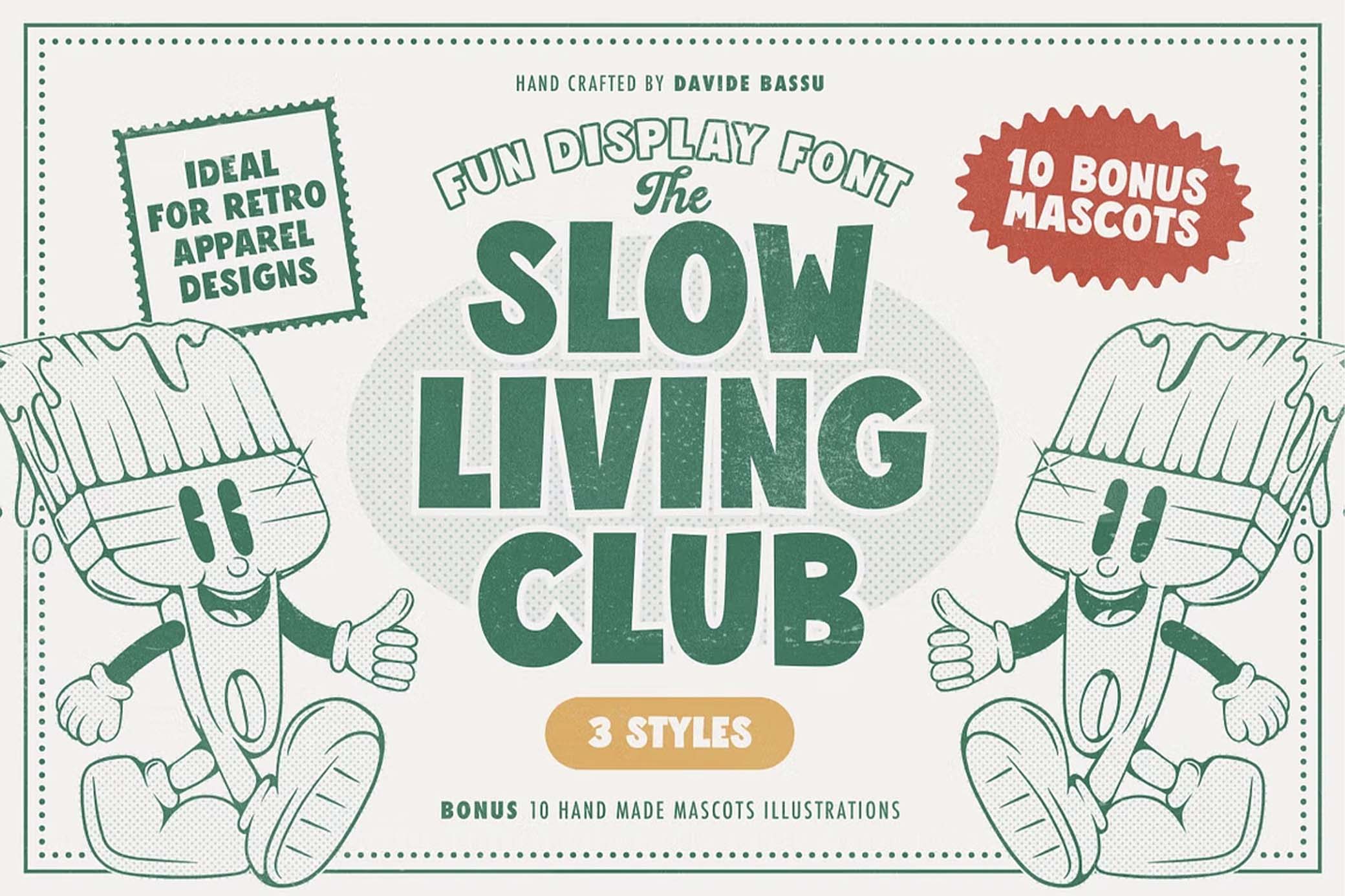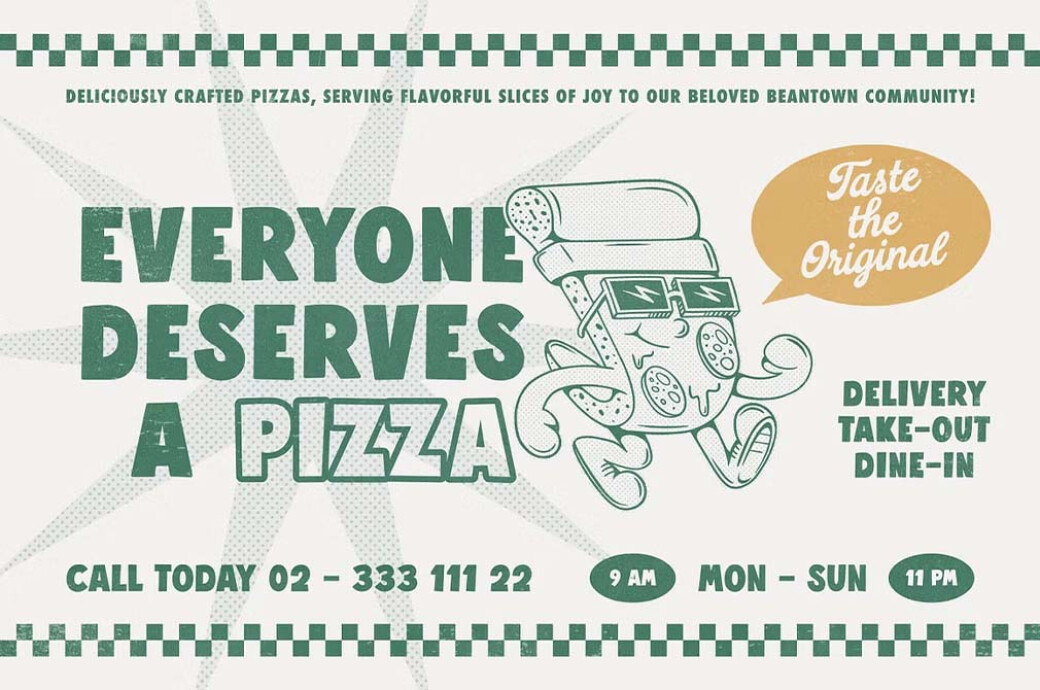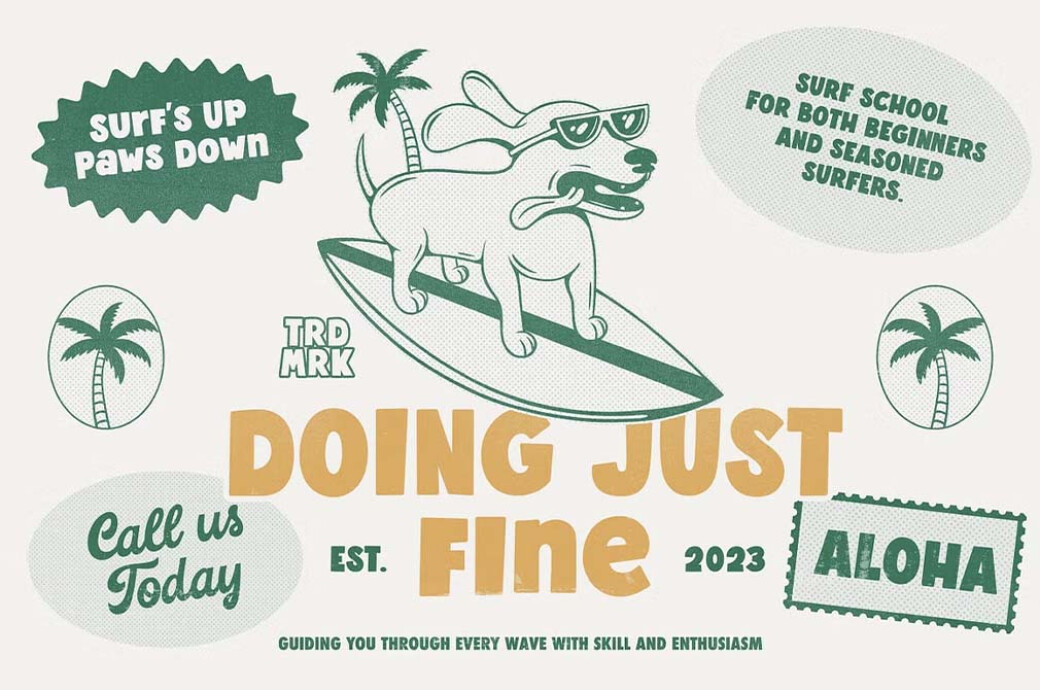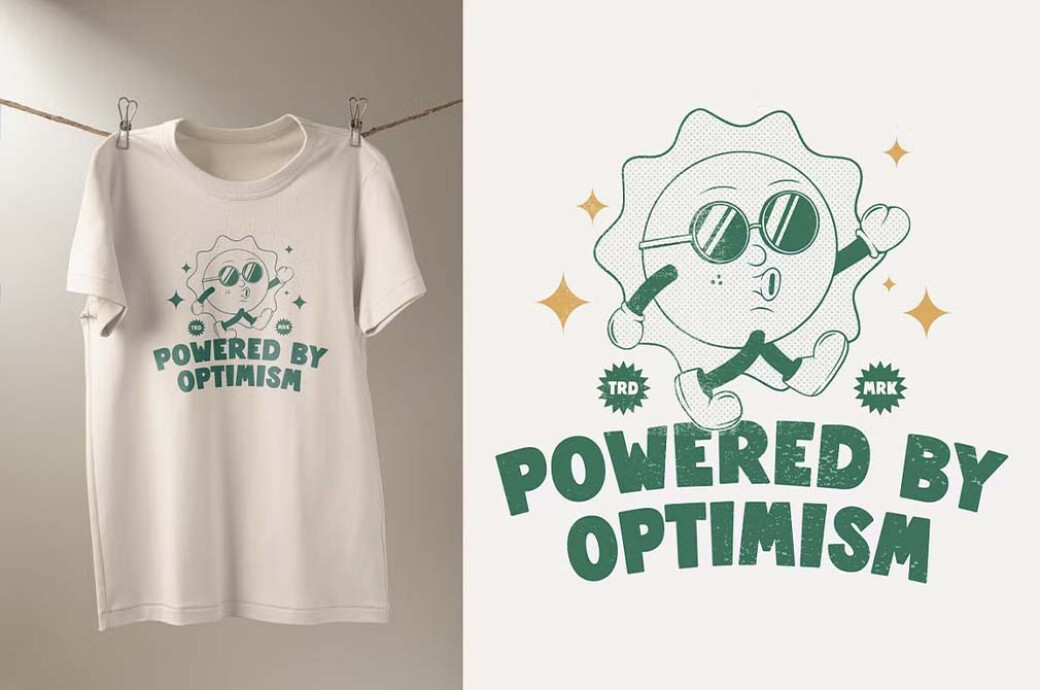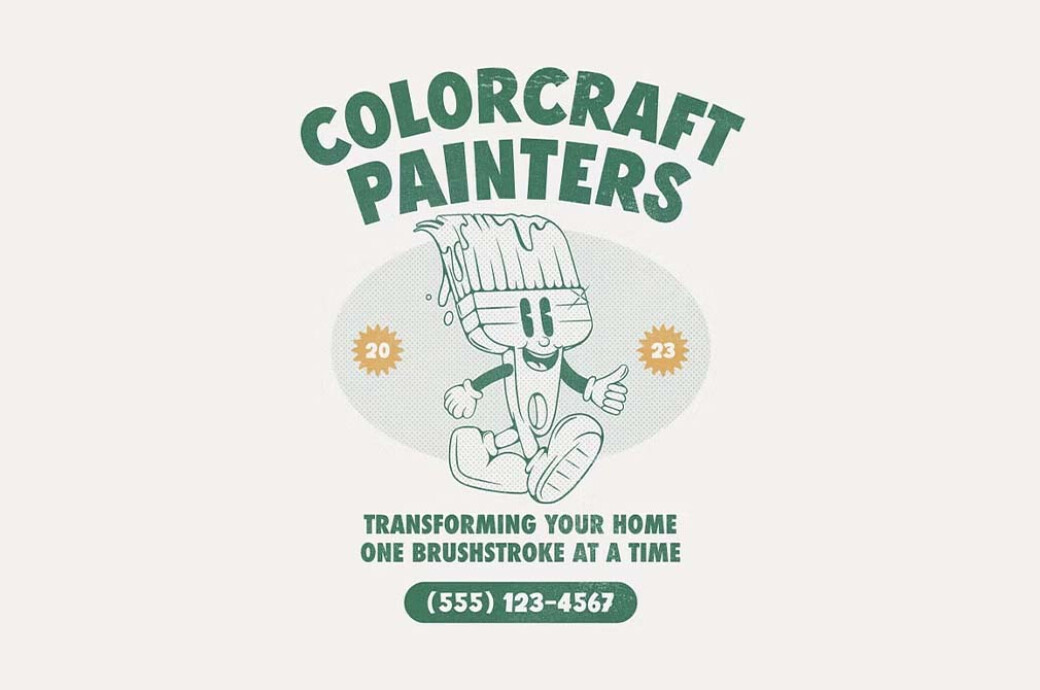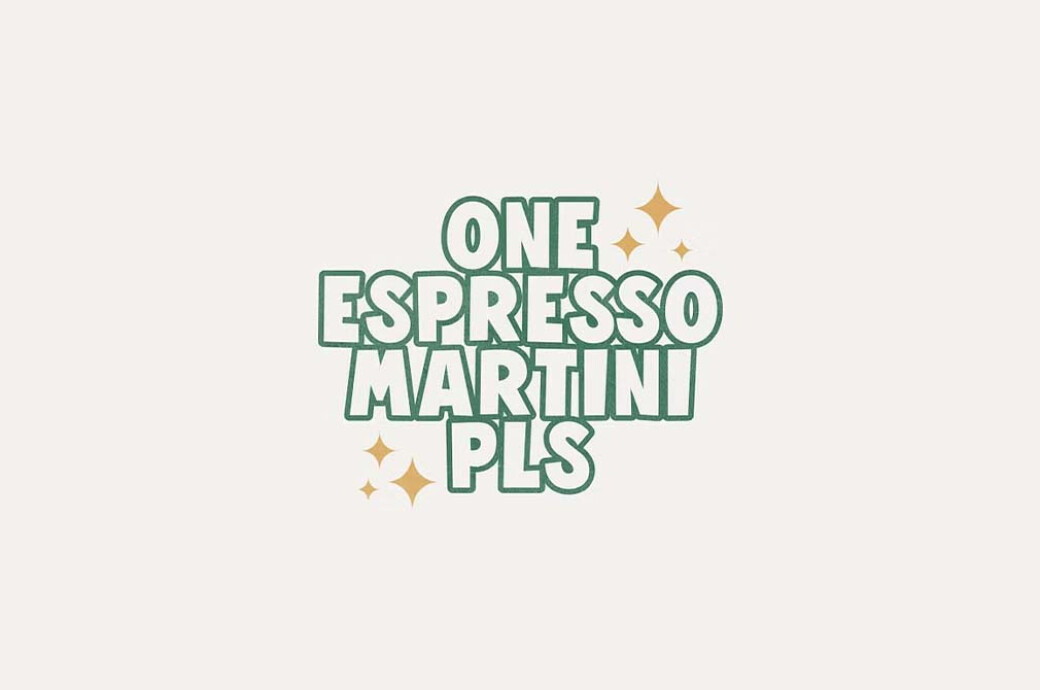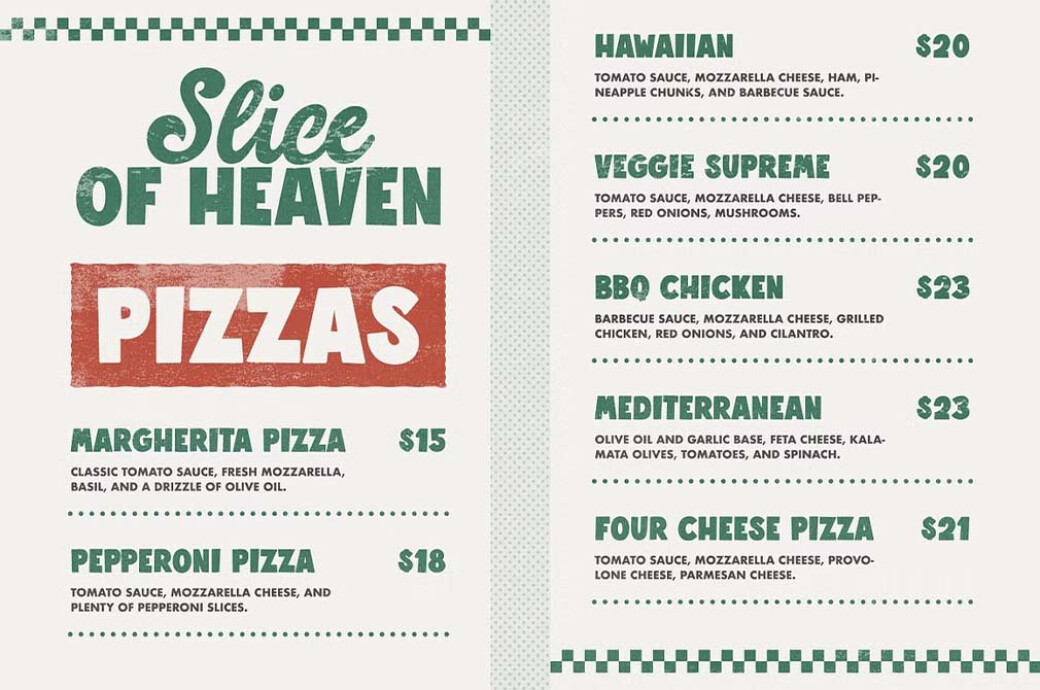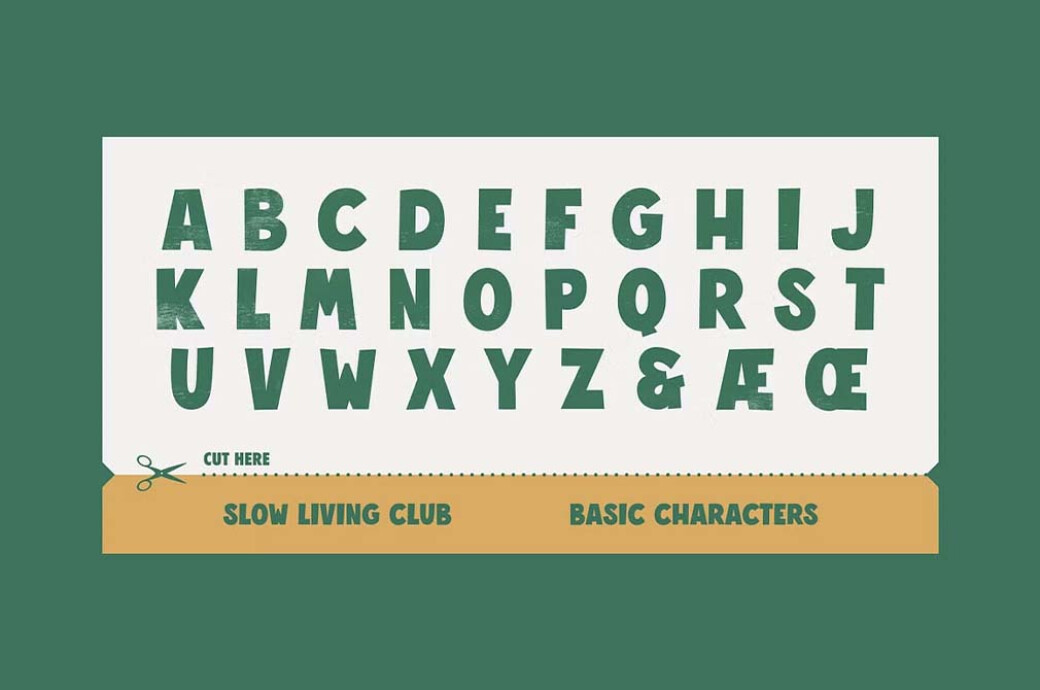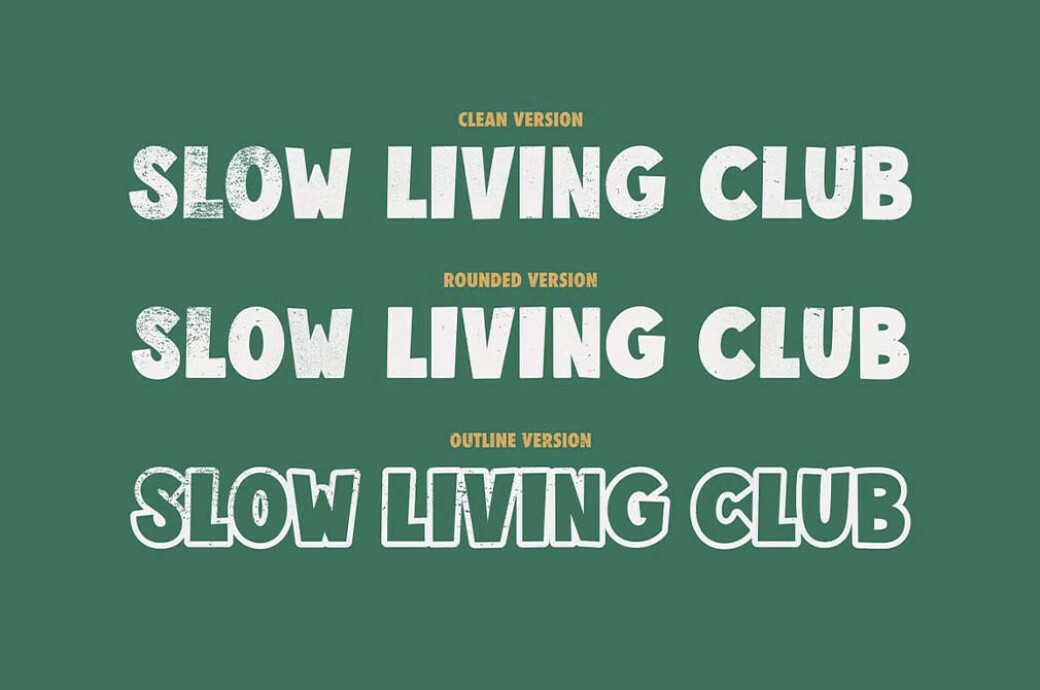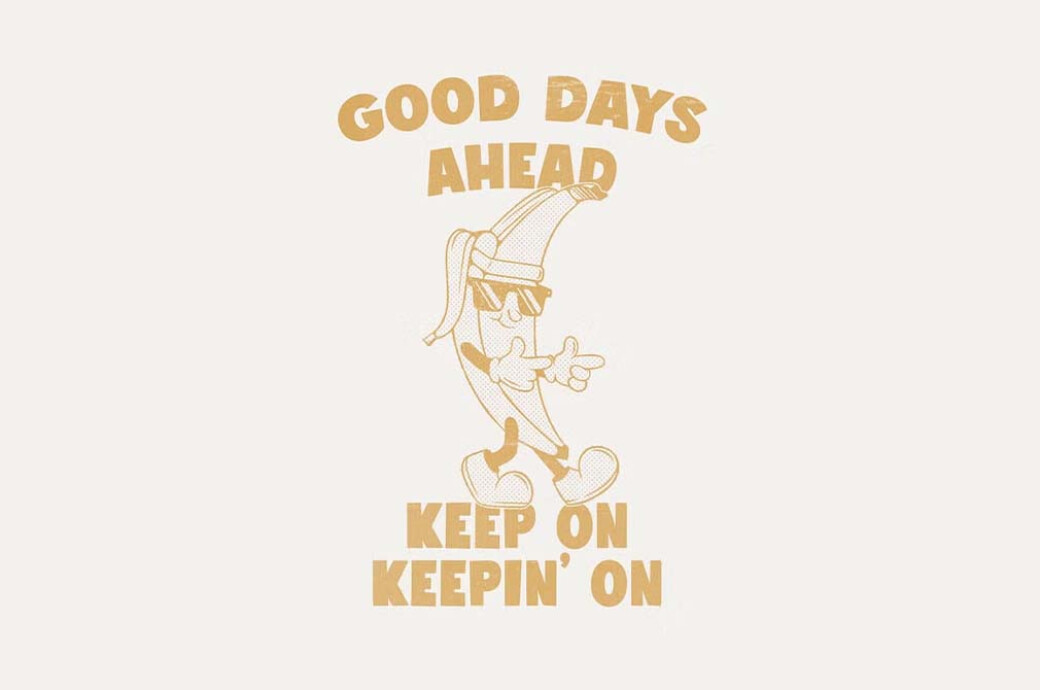
Slow Living Club — Display Font
The rubber hose style is a legit trend that most illustrators fancy. But what about types? The best idea is to draw inspiration from 1930s cartoons and their modern iterations, like Cuphead or Animaniacs.
Meet Slow Living Club, a retro display sans with an intense 30s look. It comes in 3 variations: clean, rounded, and outlined, allowing you to mix and match them. The font will make a great addition to themed illustrations, pizza branding, bars, tattoo salons, and OF COURSE t-shirts, especially those featuring retro cartoon characters. The Slow Living Club has a complete character set**(including** multilingual support) and 10 bonus PNG, AI, and EPS mascots.